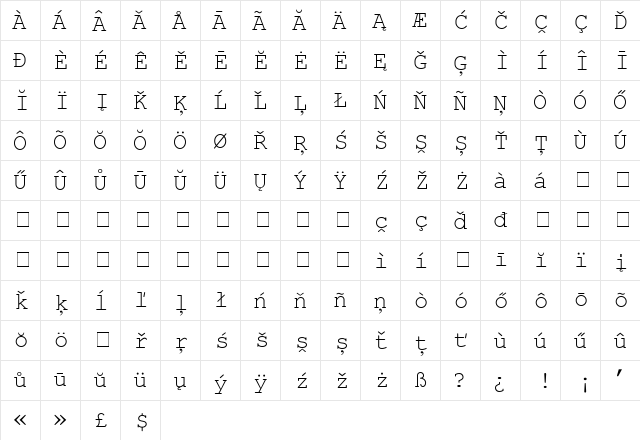
European Courier Regular
Design Context for European Courier Typeface
European Courier brings the precise, column-aligned rhythm of monospaced typography to designs that value technical clarity and systematic order.
Well-suited to data-driven dashboards, coding tutorials, and any design that wants to reference the world of programming.
Pro Tip: Use European Courier with slightly increased line-height for extended reading — fixed-width spacing can feel dense in longer passages without extra breathing room.